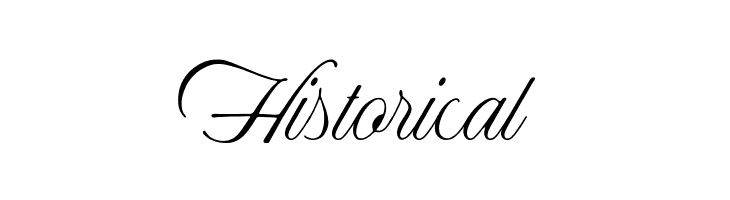
A lively handwritten font with fluid, expressive strokes.
A bold, expressive handwritten font with dynamic strokes and playful elegance.
A lively, flowing handwritten font with smooth cursive strokes and playful curves.
A stylish cursive font with elegant, flowing strokes and seamless character connections.
A bold, cursive font with interconnected characters and a playful style.
A bold, flowing script font with elegant, cursive letterforms.
A fluid and elegant script font with a handwritten style.
An elegant, flowing handwritten font with interconnected letters and a delicate touch.
A bold, playful script font with smooth, flowing curves and a hand-drawn appearance.